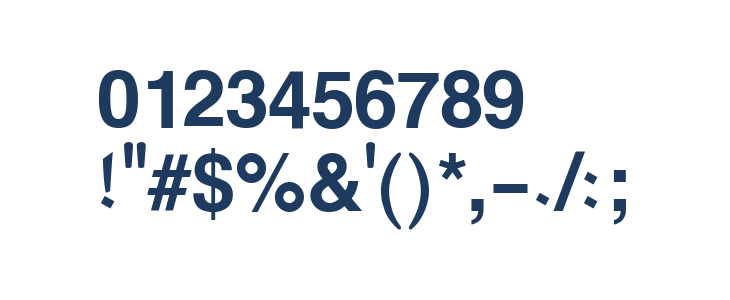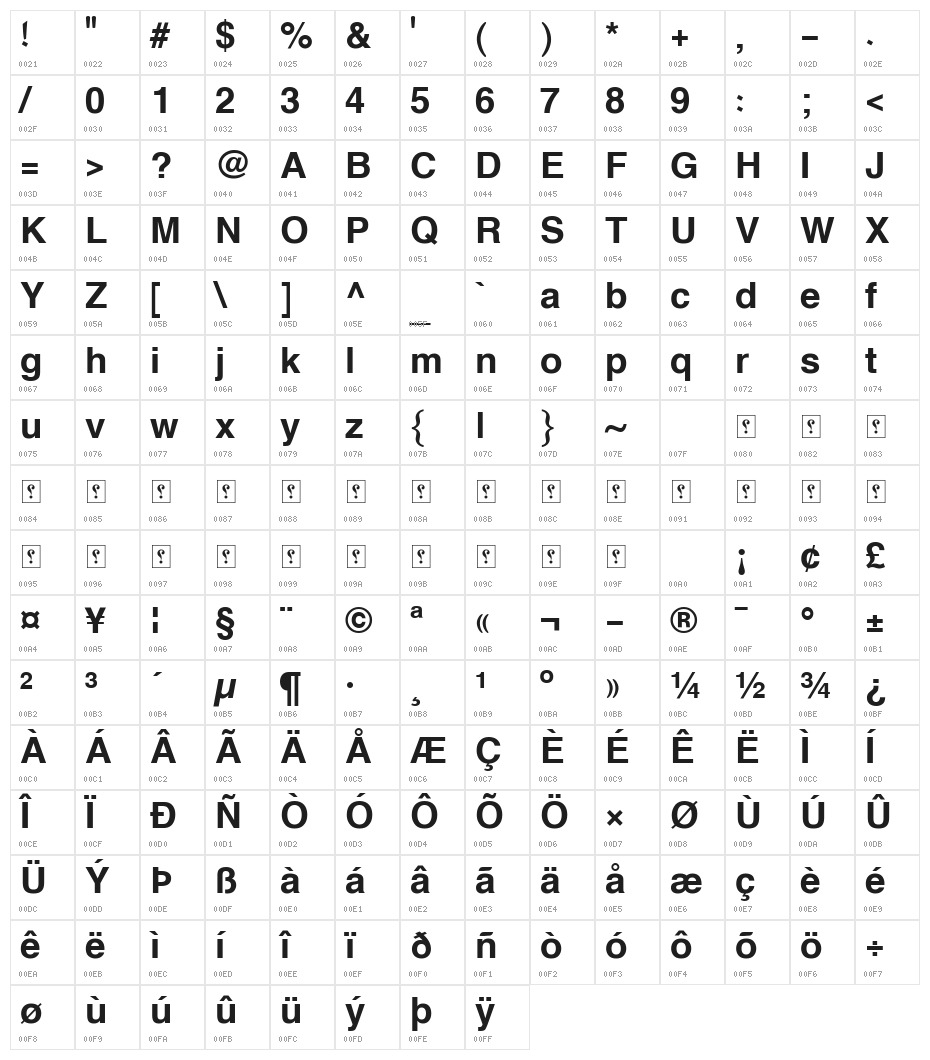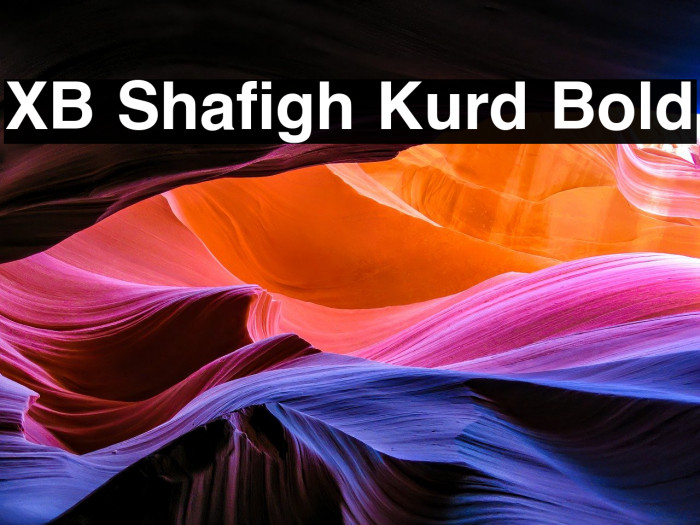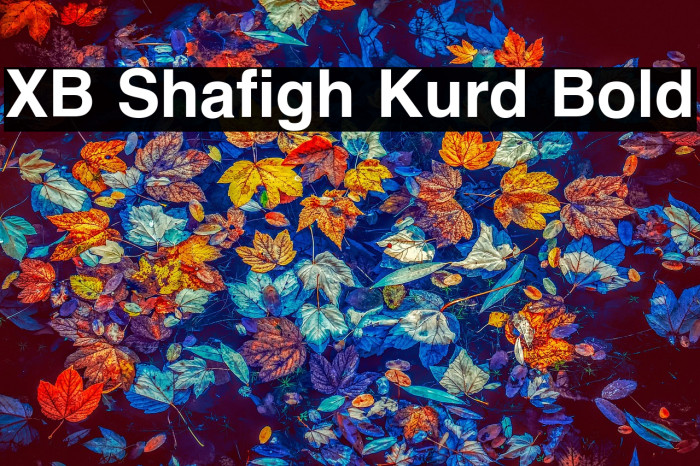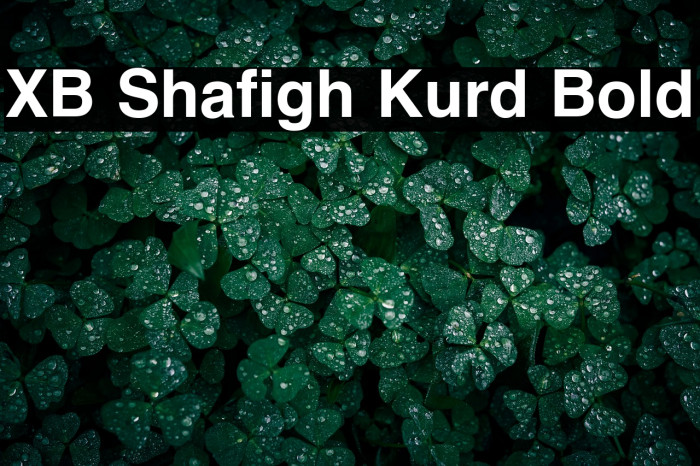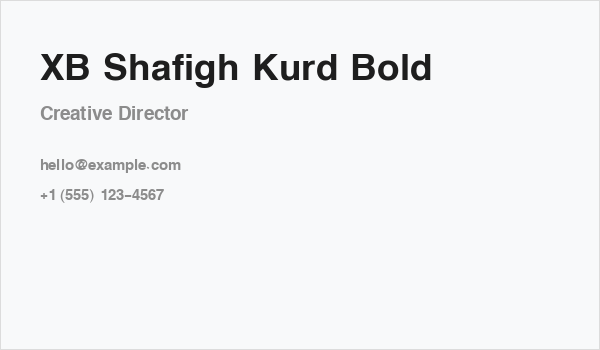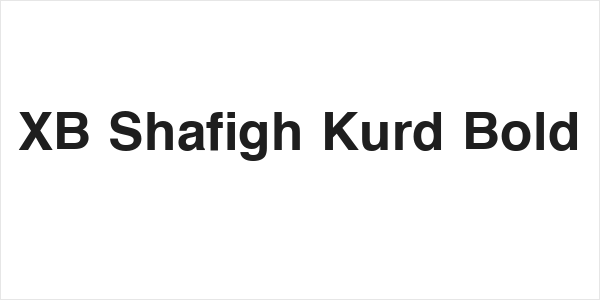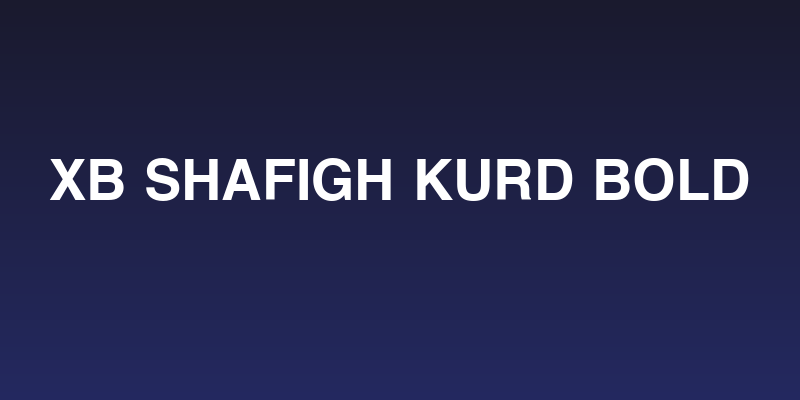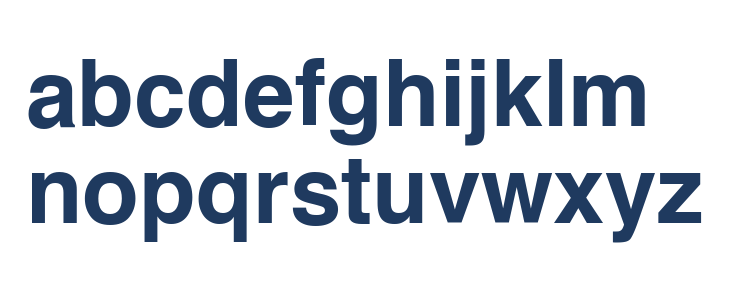
XB Shafigh Kurd Bold Font
XB Shafigh Kurd Bold Description
This typeface features a bold and assertive design, characterized by its strong, clean lines and uniform stroke width. The uppercase and lowercase letters are well-proportioned, offering a sense of balance and readability. The numerals and special characters maintain the same boldness, ensuring consistency across all elements. Its sans-serif style gives it a modern and professional appearance, suitable for various applications. The overall design is straightforward and impactful, making it ideal for attention-grabbing headlines and branding materials.
| Proposed Projects | Ideal for branding, advertising, headlines, and signage where a strong, modern presence is required. |